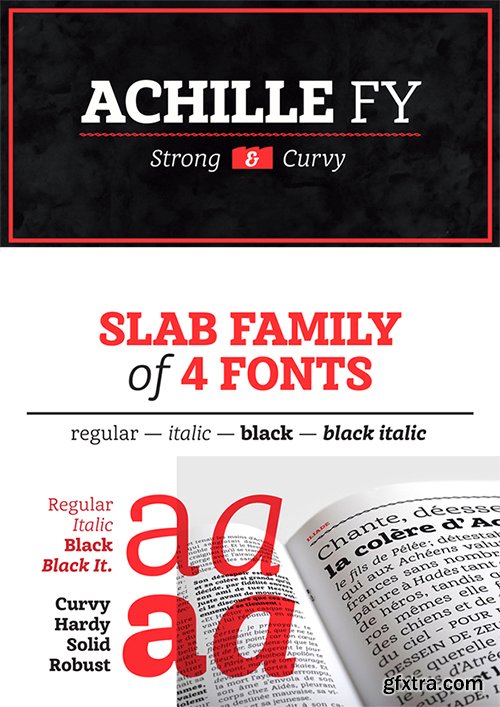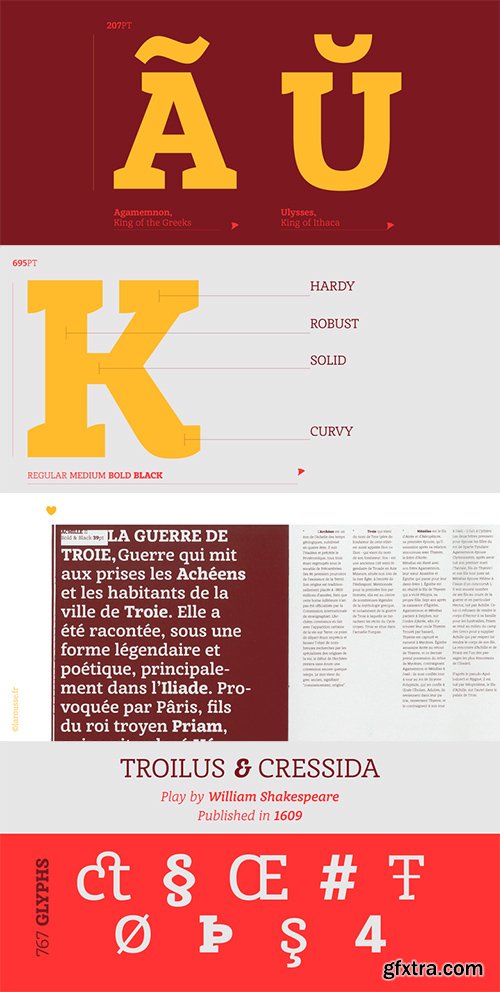
Achille FY II
This Slab serif typeface is characterized by its curved & angular serifs which give it a special character. Not too rigid, not too round, its well balanced shapes make itself both legible in small size and powerful in big for headlines, with its robust structure.Achille II FY was co-created by Alisa Nowak, Gregori Vincens and Valentine Proust on co-create.fontyou.com, the first collaborative type foundry.